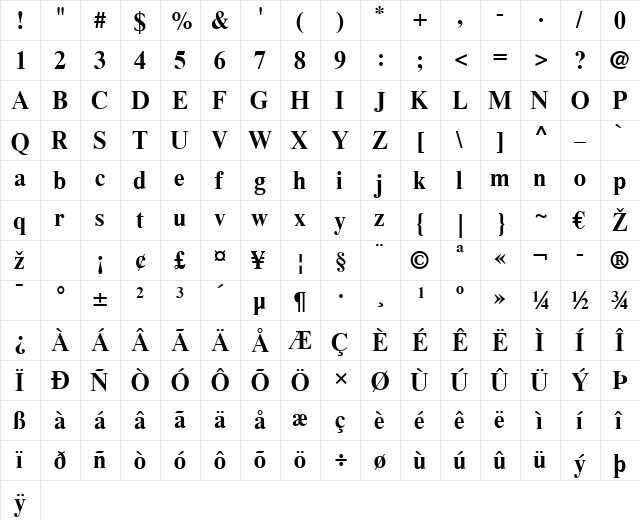
TimesEighteen LT Roman Bold Font Preview
TimesEighteen LT Roman Bold
Design Context for TimesEighteen LT Roman Typeface
TimesEighteen LT Roman is a composed and adaptable typeface that performs quietly and consistently across a wide range of design contexts. The heavy weight commands attention and anchors typographic hierarchies.